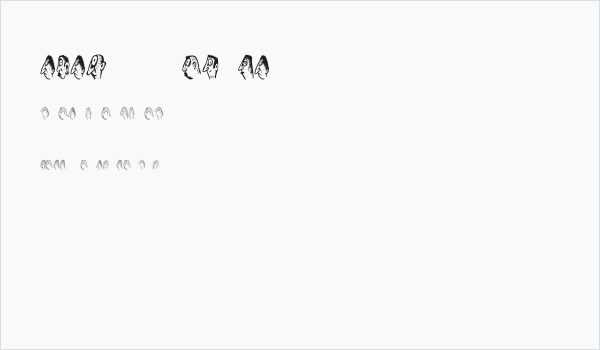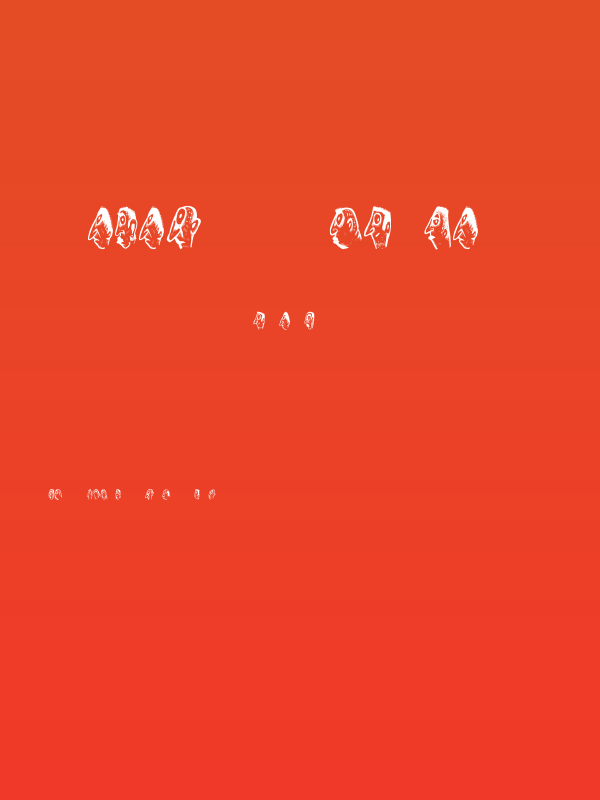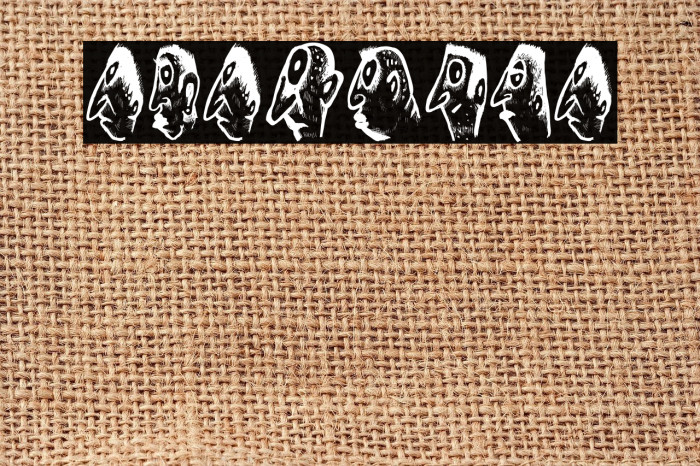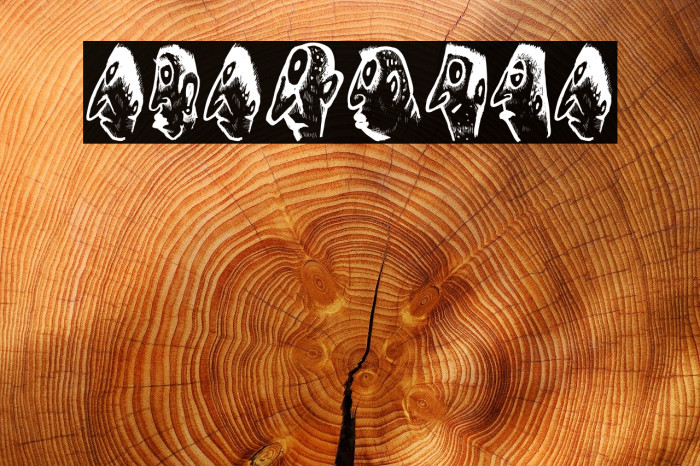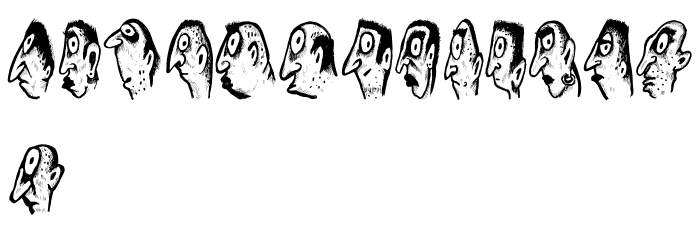
Abantu Regular Font
Abantu Regular Description
This is a highly creative and whimsical font where each character is represented by a unique, cartoonish face. The design is playful and artistic, with exaggerated features that give each letter a distinct personality. The font is more of an artistic expression than a traditional typeface, making it ideal for projects that require a humorous or unconventional approach. The characters are bold and visually striking, with a hand-drawn quality that adds to their charm. This font is not suitable for body text but excels in decorative applications where visual impact is key.
| Use Case | Logos, Headlines, Artistic projects |
| Proposed Projects | Ideal for comic books, children's book illustrations, playful posters, and creative branding. |